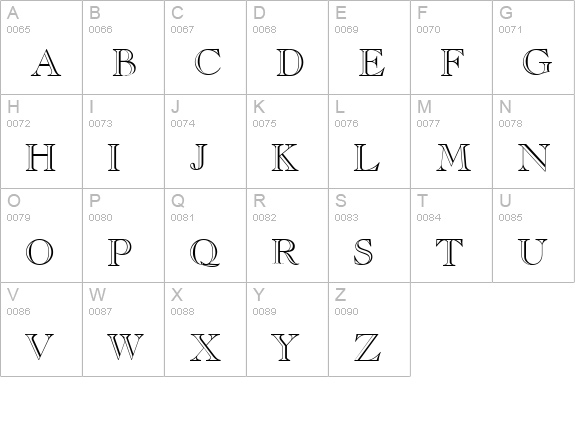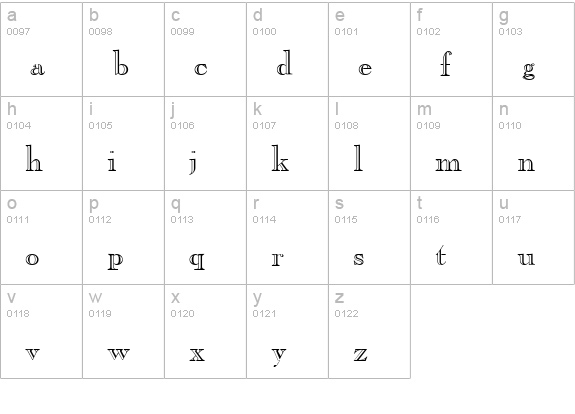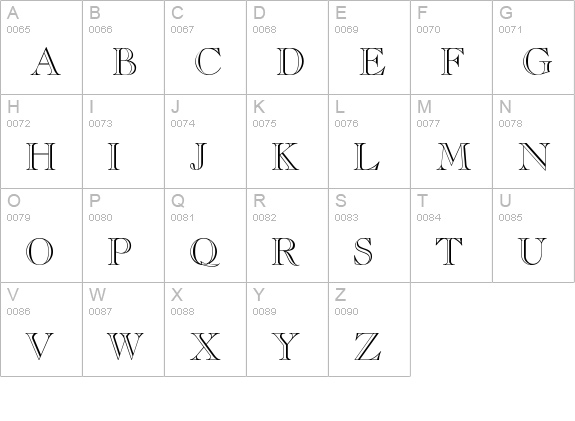
Cas Open Face Normal Font Details
Cas Open Face Normal is the standard, neutral variant in the Cas typeface family \xE2\x80\x94 well suited to general body text, paragraphs, and standard typographic work.
Cas Open Face Normal font is a stylish and versatile typeface that exudes elegance and sophistication. With its clean lines and classic design, this font is perfect for a wide range of design projects, from branding to editorial design. Its open face style adds a unique touch to any text, making it stand out from the crowd. What sets Cas Open Face Normal font apart is not only its timeless aesthetic but also the fact that it is available for free download at FontsMarket.com. This means that you can easily access this high-quality font without any cost, making it a valuable addition to your font library. Whether you're a professional designer or a hobbyist looking to enhance your projects, Cas Open Face Normal font is a must-have resource that offers both style and accessibility.